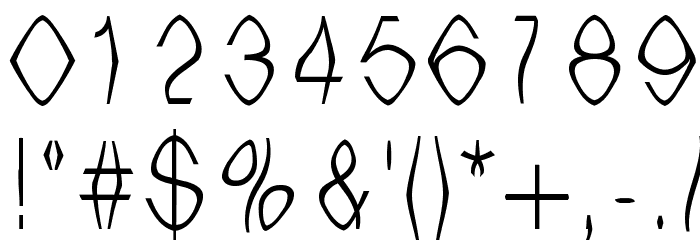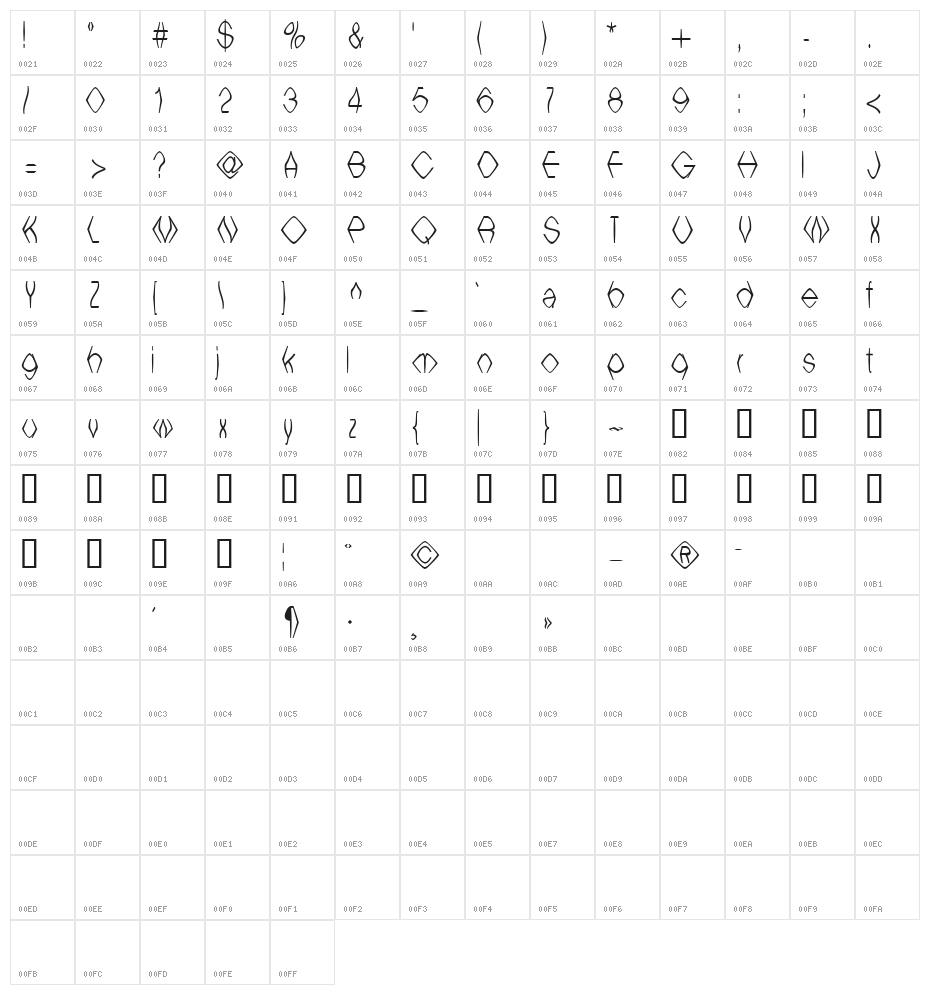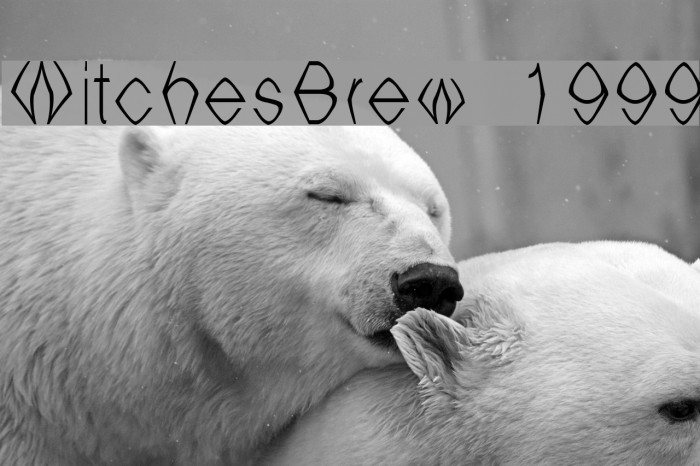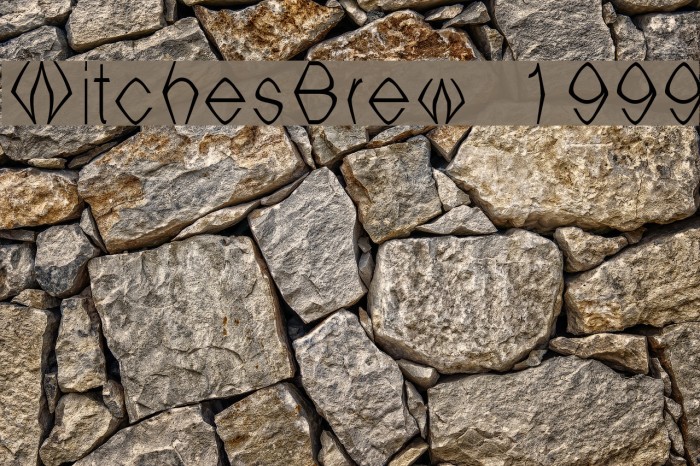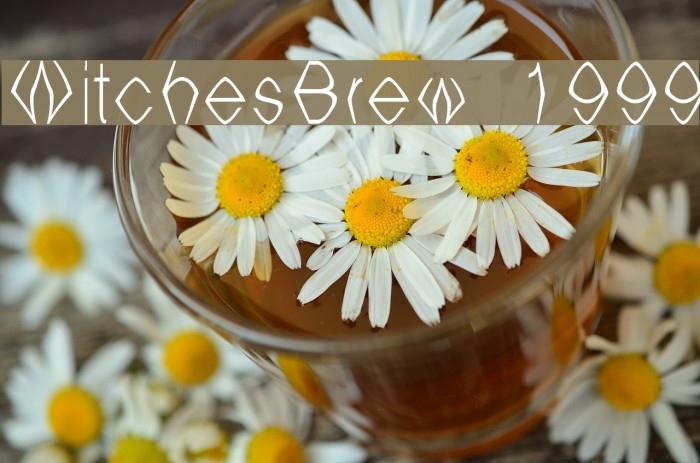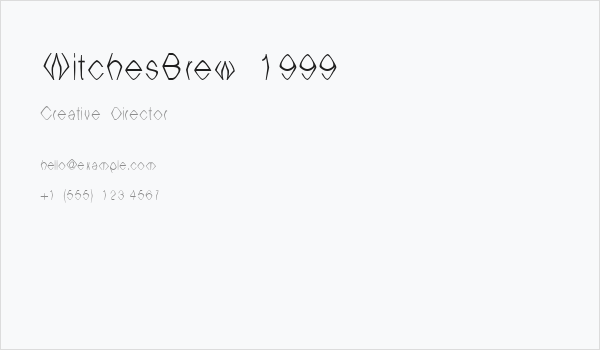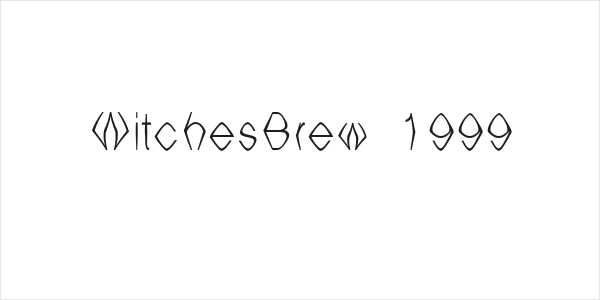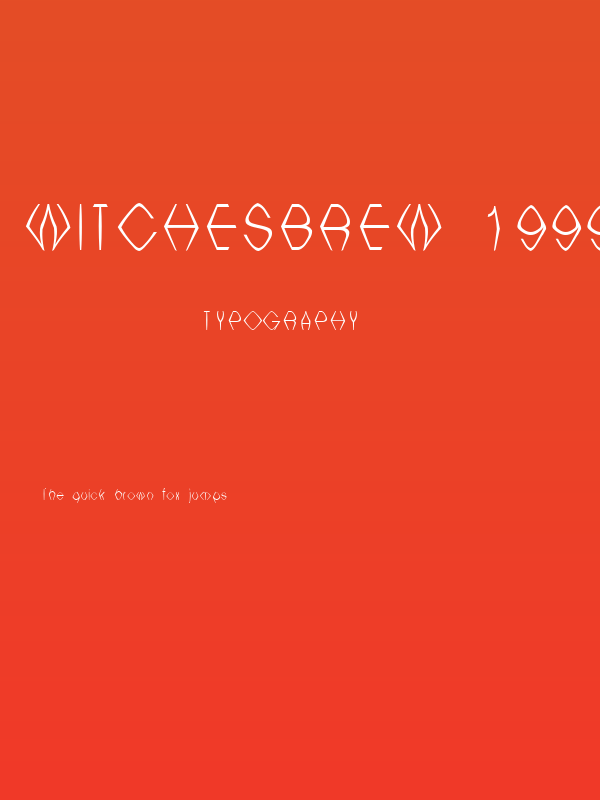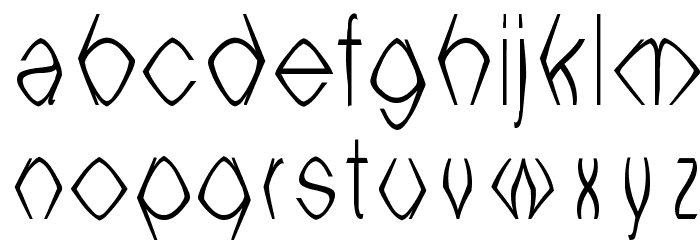
WitchesBrew 1999 Font
WitchesBrew 1999 Description
This font features a unique, mystical design with angular and geometric shapes that evoke a sense of mystery and magic. The characters are crafted with sharp edges and pointed tips, giving them a distinctive and edgy appearance. The uppercase and lowercase letters maintain a consistent style, with the lowercase letters being slightly more rounded. The numbers and special characters follow the same design principles, ensuring a cohesive look across all elements. The overall style is reminiscent of ancient runes or symbols, making it perfect for projects that require a touch of the arcane or fantastical.
| Overall Style | Mystical, Fantastical, Edgy |
| Use Case | Headlines, Logos, Themed Events |
| Proposed Projects | Ideal for fantasy-themed projects, Halloween invitations, mystical branding, or any design requiring a magical touch. |